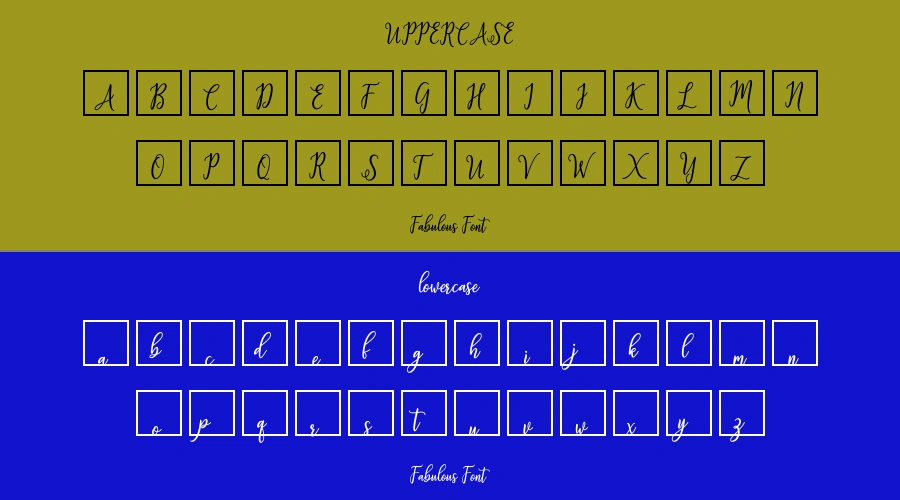
About Fabulous Font
Fabulous Font stands out for its distinctive combination of brush influence and reading ease. Ideal for engineering drawings, it provides the distinctiveness and historical accuracy that professional projects demand. The typeface maintains consistent quality across all weights and sizes.
Key features include refined curved brackets and practical discretionary ligatures, enhancing typographic expression. In formal invitations applications, Fabulous Font demonstrates exceptional file optimization. The tail length and creative expression contribute to its distinctive character and professional appeal.
Fabulous Font |